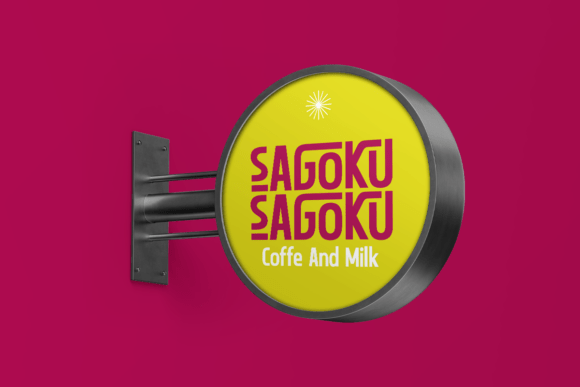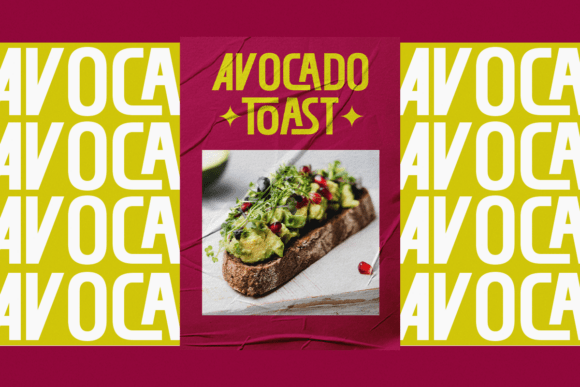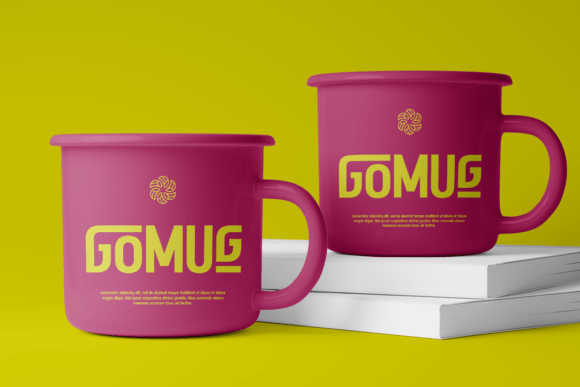
Introduction to Nevanty Font
You know that moment when you’re working on a creative project and you just can’t seem to find the right font to match your vision? The perfect font can elevate your design from good to great, and that’s exactly where the Nevanty Font comes in. This charming sans-serif font is designed to add a touch of personality to your designs, making it a valuable resource for any designer.
With its bold and condensed style, the Nevanty Font is perfect for crafting inviting headlines, quirky logos, or delightful posters. Its friendly design and abundance of ligatures and alternate characters make it a high-quality font that’s sure to bring joy and charm to your creative project.
Key Features of Nevanty Font
- High-quality design resource ideal for creative projects, including logos, branding materials, and digital art.
- Includes a range of font styles, from bold and elegant to playful and modern, providing versatility for designers.
- Perfect for designers looking for a unique and creative font to elevate their design projects, with a unique blend of modern and vintage elements.
Honest Review: Nevanty Font
As a designer, I’m always on the lookout for high-quality design resources to enhance my creative projects. Recently, I came across the Nevanty Font, and I was excited to give it a try. Here’s my honest review.
What works well: ✨ The Nevanty Font offers a clean and modern design aesthetic, making it perfect for a variety of creative projects. The font is highly customizable, allowing designers to easily adjust the style to suit their needs. Additionally, the transparent background option is a great feature, enabling seamless integration with images or other design elements.
Overall, I’m impressed with the Nevanty Font’s potential, and I think it could be a valuable resource for designers looking to add some sophistication to their creative projects. However, its limitations may prevent it from becoming a go-to font for more extensive design needs.
- High-quality, modern design aesthetic
- Customizable font styles
Tips for Getting the Most Out of the Nevanty Font
The Nevanty Font is ideal for creative projects such as logos, brochures, and presentations. Its high-quality design and transparent background make it a versatile font for various design applications.